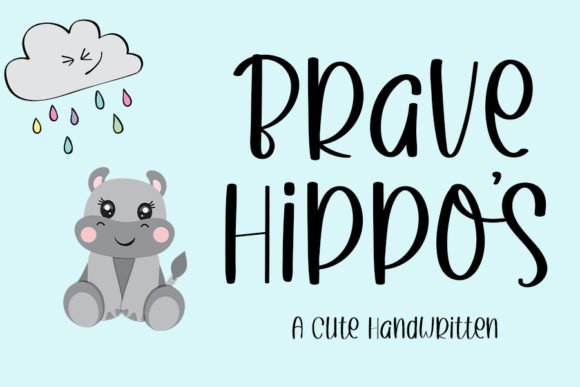
Adding a Touch of Whimsy: The Brave Hippos Font
Have you ever been working on a design project and suddenly, you just can’t seem to find the right font to capture the essence of your creative vision? You scroll through your font library, searching for the perfect combination of style and personality, but nothing seems to quite fit. That’s where the Brave Hippos Font comes in – a cute and friendly handwritten font that’s sure to bring a relaxed touch to your next project.
This charming font is perfect for designers who want to add a playful and informal vibe to their work. With its casual style and endearing personality, the Brave Hippos Font is an excellent choice for projects that require a laid-back and approachable feel. Whether you’re designing a children’s book, a social media campaign, or a product label, this font is sure to make your creations stand out.
Brave Hippos Font Key Features
- Font Family: Brave Hippos Font is a unique, hand-drawn font family designed to evoke the spirit of adventure and exploration.
- Unique Characteristics: The font features bold, expressive lines, and quirky characters that add a touch of personality to any design.
Designer Review: Brave Hippos Font
Overall, I’m quite impressed with the Brave Hippos Font. ✨ Its unique, playful design makes it perfect for children’s books, advertising, and other projects that require a fun and energetic vibe. The font is well-suited for headings and titles, adding a touch of whimsy to any design.
The font’s irregular shapes and varied line widths give it a hand-drawn feel, which I think is a major strength. ✨ It’s clear that the designer put a lot of effort into creating a font that’s both visually interesting and easy to read. The font also includes a range of weights and styles, making it versatile and suitable for a variety of applications.
- ⚠️ The font may not be suitable for formal or professional designs, as its playful nature can come across as immature or unprofessional.
- ⚠️ The font’s irregular shapes can make it challenging to use in certain contexts, such as in small text sizes or in situations where precise alignment is required.
Overall, I think the Brave Hippos Font is a great addition to any designer’s toolkit. While it may have some limitations, its unique design and versatility make it a great choice for a wide range of projects.
For optimal results, use Brave Hippos Font in bold or italic styles to emphasize text. Experiment with different font sizes and colors to create visually appealing designs. Brave Hippos Font is ideal for use in logos, branding materials, and advertisements.